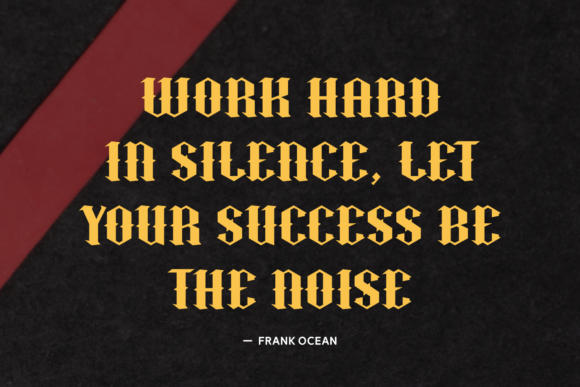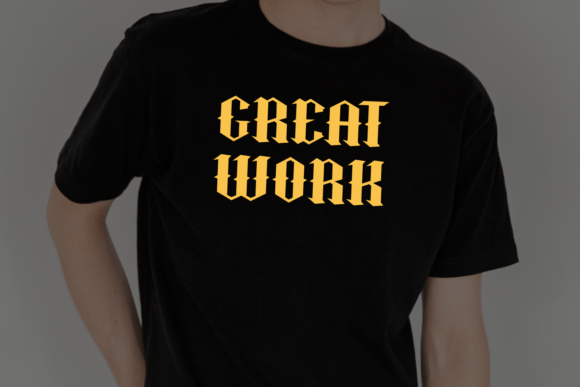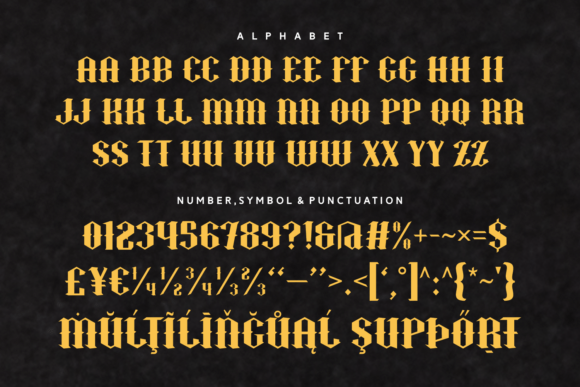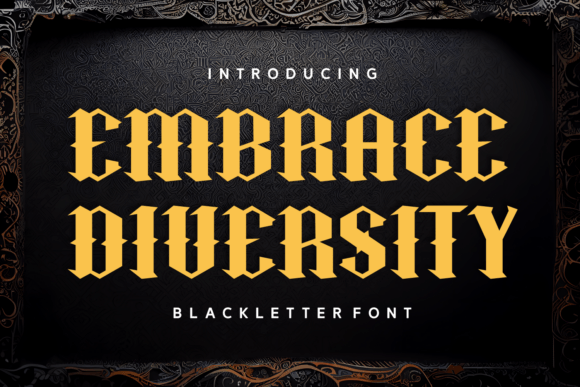
Introducing Embrace Diversity Font: A Bold Blackletter Typeface for Impactful Designs
In the world of typography, fonts play a crucial role in conveying messages, evoking emotions, and creating lasting impressions. For designers and crafters seeking a typeface that embodies strength, tradition, and modernity, Embrace Diversity Font is an exceptional choice. This bold blackletter font is specifically crafted to command attention with its sharp, angular strokes and classic gothic structure, making it perfect for editorial headlines, posters, branding, or cultural-themed designs.
A Powerful Visual Statement
Embrace Diversity Font is designed to deliver a powerful visual statement, honoring tradition while standing tall with a modern voice. Its bold and striking appearance makes it an ideal choice for projects that aim to inspire, challenge, and unite. Whether you’re working on a editorial headline, a poster, or a branding project, this font is sure to make a lasting impression on your audience.
Key Features of Embrace Diversity Font
- Bold Blackletter Typeface: Embrace Diversity Font features a bold blackletter typeface that exudes confidence and strength.
- Sharp, Angular Strokes: The font’s sharp, angular strokes add a touch of modernity and sophistication to any design.
- Classic Gothic Structure: The font’s classic gothic structure provides a sense of tradition and heritage, making it perfect for cultural-themed designs.
- Crafted for Impact: Embrace Diversity Font is specifically crafted to make a lasting impact, making it ideal for projects that require a bold and striking appearance.
Embrace Diversity Font is an excellent choice for designers and crafters seeking a typeface that can add a touch of elegance and sophistication to their projects. Whether you’re working on a:
- Editorial Headline: Use Embrace Diversity Font to create a bold and striking headline that grabs the reader’s attention.
- Poster: Add a touch of drama and impact to your poster with this font’s bold and angular strokes.
- Branding Project: Use Embrace Diversity Font to create a strong and memorable brand identity that reflects your values and mission.
- Cultural-Themed Design: Honor tradition and heritage with this font’s classic gothic structure, perfect for cultural-themed designs.
Why Choose Embrace Diversity Font?
With Embrace Diversity Font, you can:
- Add Impact and Drama: Create a lasting impression with this font’s bold and striking appearance.
- Honor Tradition: Pay homage to tradition and heritage with this font’s classic gothic structure.
- Make a Statement: Use Embrace Diversity Font to make a bold and powerful statement that inspires, challenges, and unites.
Embrace Diversity Font is an exceptional typeface that embodies strength, tradition, and modernity. With its bold blackletter design, sharp, angular strokes, and classic gothic structure, this font is perfect for designers and crafters seeking to create impactful and memorable designs. Whether you’re working on an editorial headline, poster, branding project, or cultural-themed design, Embrace Diversity Font is an excellent choice. So why wait? Embrace diversity and make a statement with this powerful and elegant font.